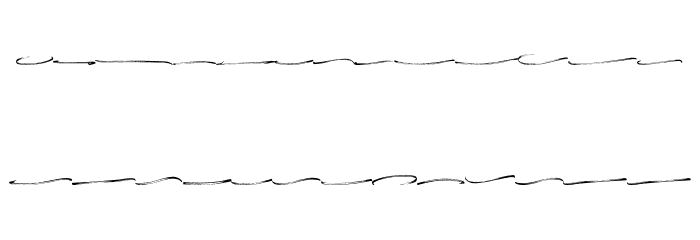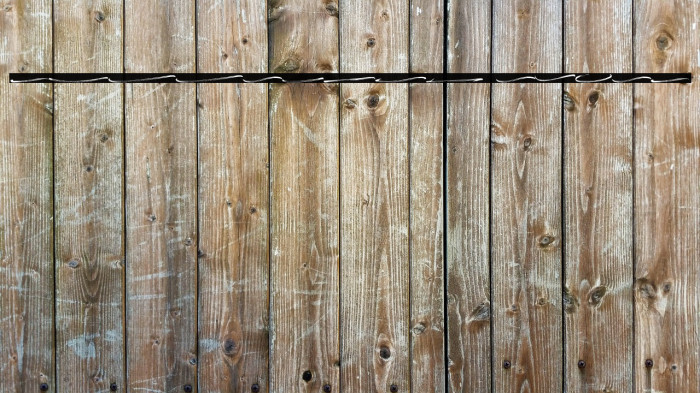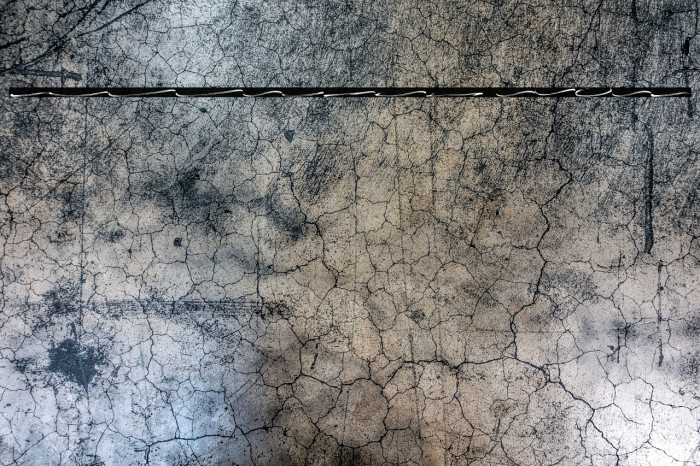
Hillstone swash Font
This font is characterized by its elegant and flowing script style, reminiscent of traditional calligraphy. The strokes are smooth and connected, creating a sense of fluidity and grace. Each letter is crafted with delicate curves and loops, giving it a sophisticated and artistic appearance. The font maintains a consistent line weight throughout, enhancing its readability while preserving its decorative charm. It is ideal for projects that require a touch of elegance and refinement, such as wedding invitations, formal event programs, or high-end branding materials.
An elegant and flowing script font with a calligraphic style.
- Proposed Projects: Ideal for wedding invitations, formal event programs, and high-end branding materials.
- Category: Script
- Overall Style: Elegant
- Use Case: Headlines, Invitations, Branding